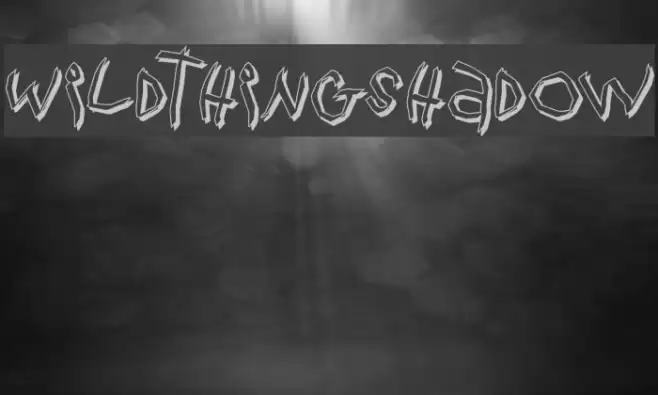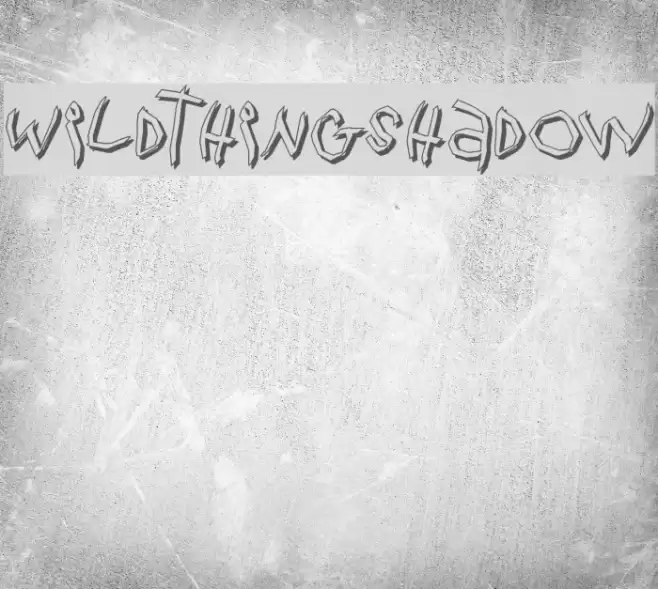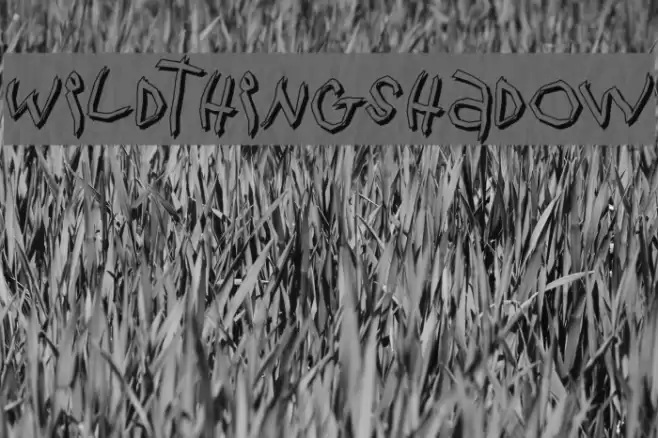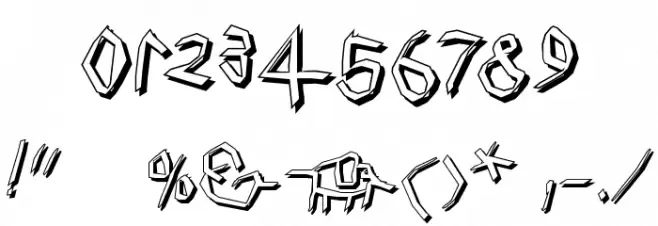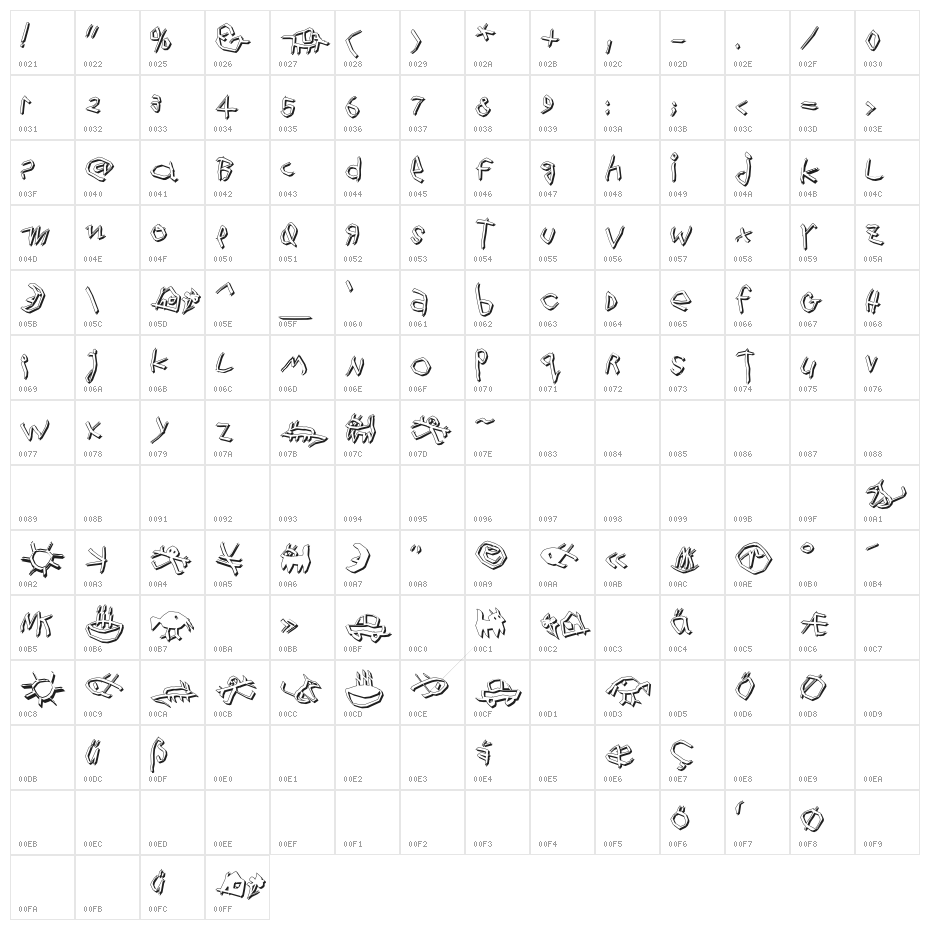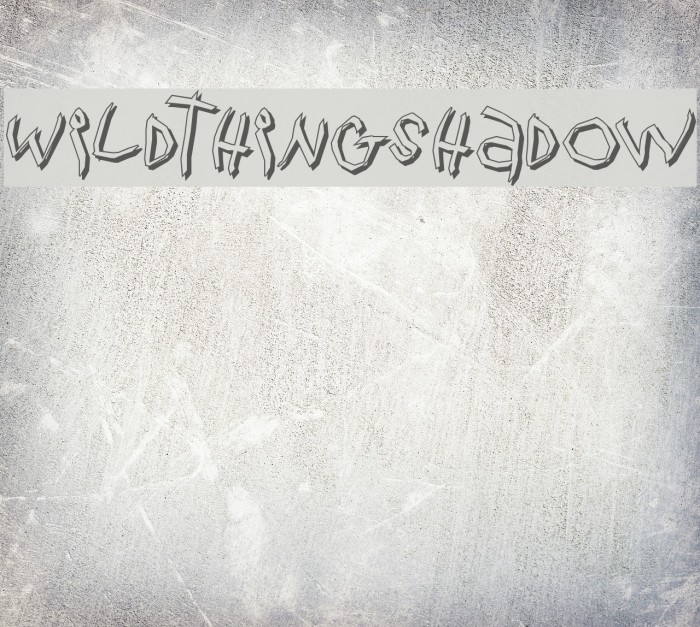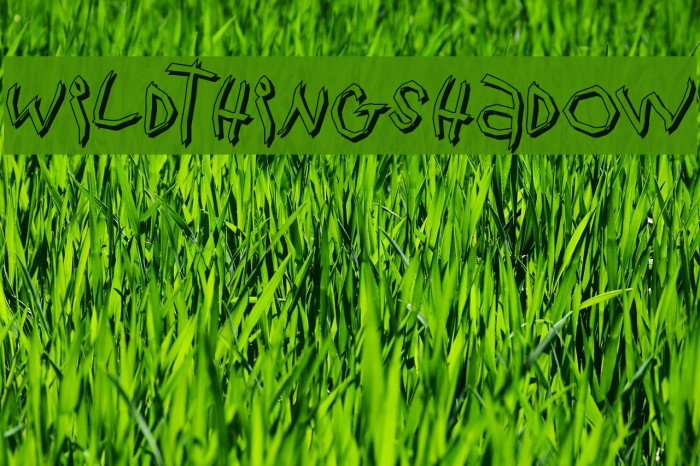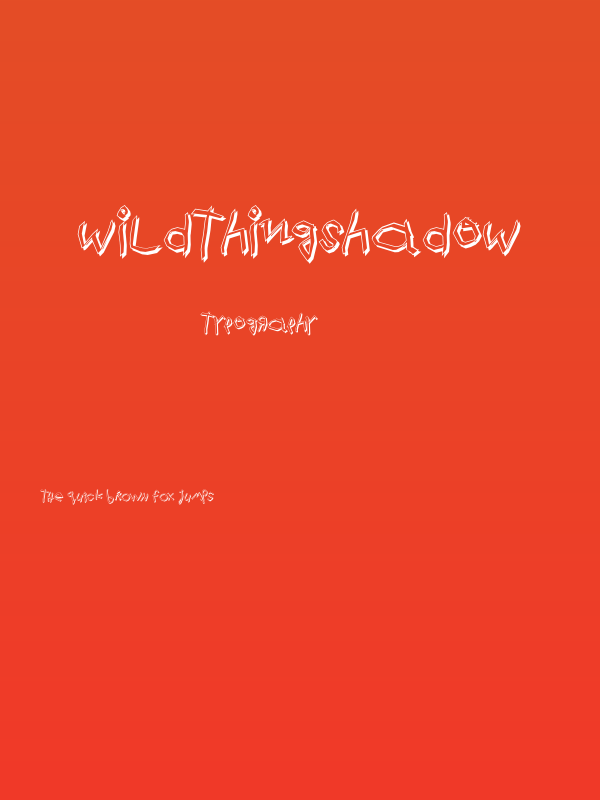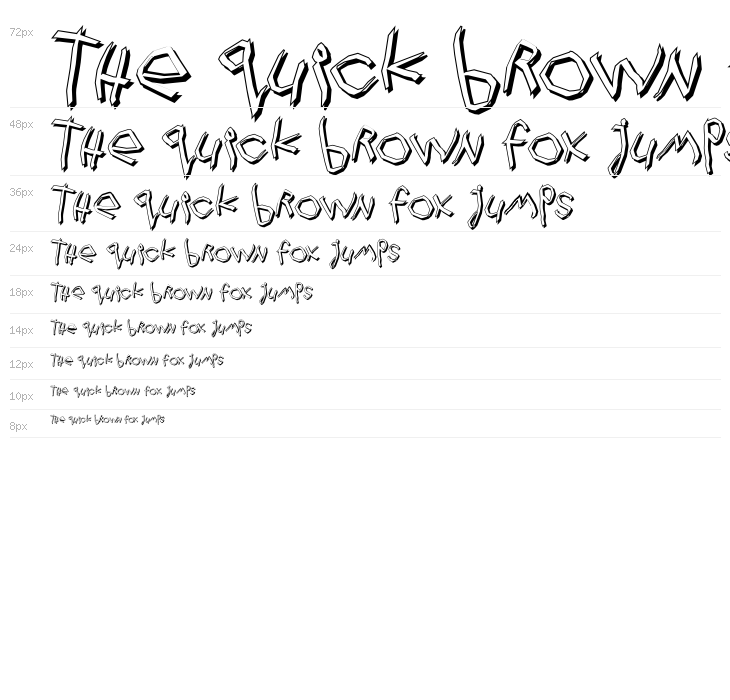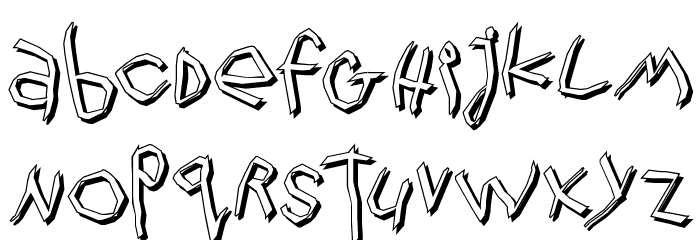
WildThingShadow Font
WildThingShadow Description
This font features a bold, edgy style with a three-dimensional shadow effect that gives each character a dynamic and striking appearance. The letters are angular and jagged, creating a sense of movement and energy. The uppercase and lowercase letters maintain a consistent style, with sharp edges and a playful, rebellious vibe. Numbers and special characters follow the same design principles, ensuring a cohesive look across all elements. The font's unique shadowing adds depth, making it stand out in any design project.
A bold, edgy font with a 3D shadow effect and angular, dynamic characters from Uncategorized fonts.
- Proposed Projects: Ideal for projects that require a bold statement, such as posters, album covers, or branding for edgy or alternative brands.
- Overall Style: Modern, Edgy